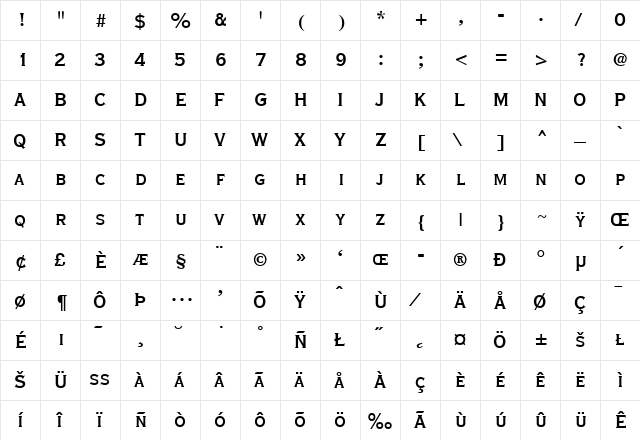
Copperplate-ThirtyBC Regular
Design Context for Copperplate-ThirtyBC Typeface
Copperplate-ThirtyBC takes a measured approach to typography — its balanced proportions and neutral character make it a reliable workhorse for both digital and print work.